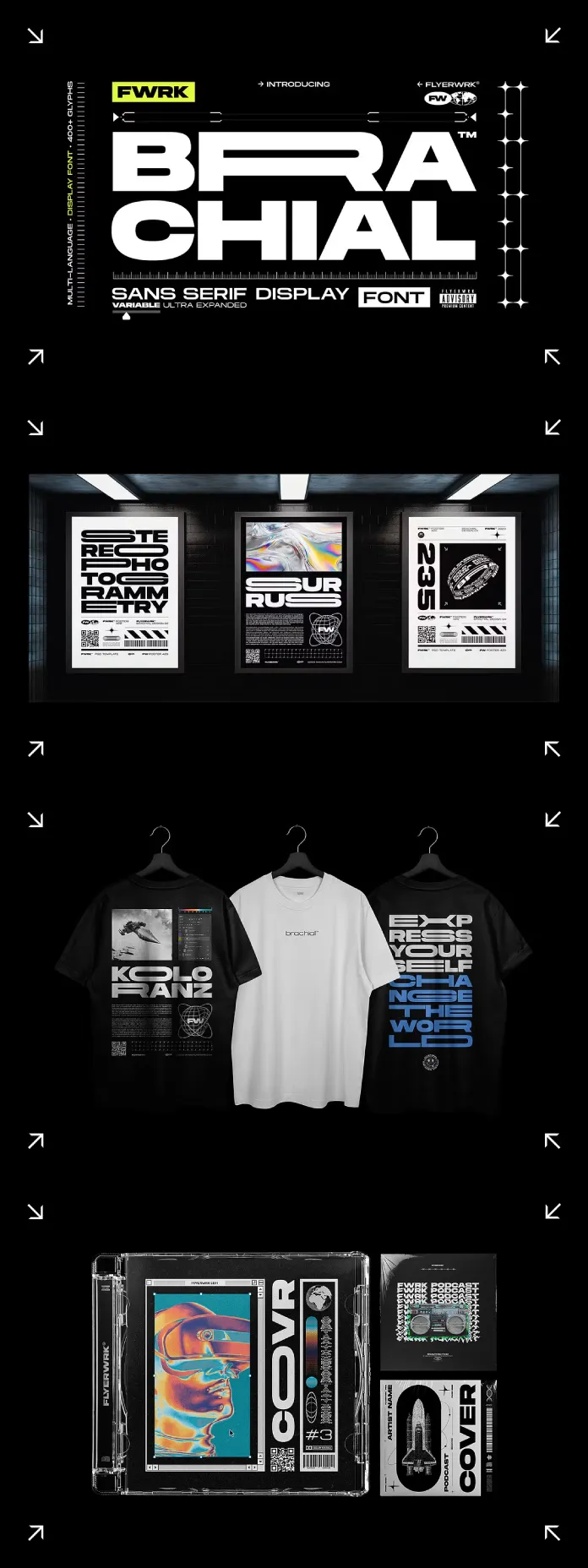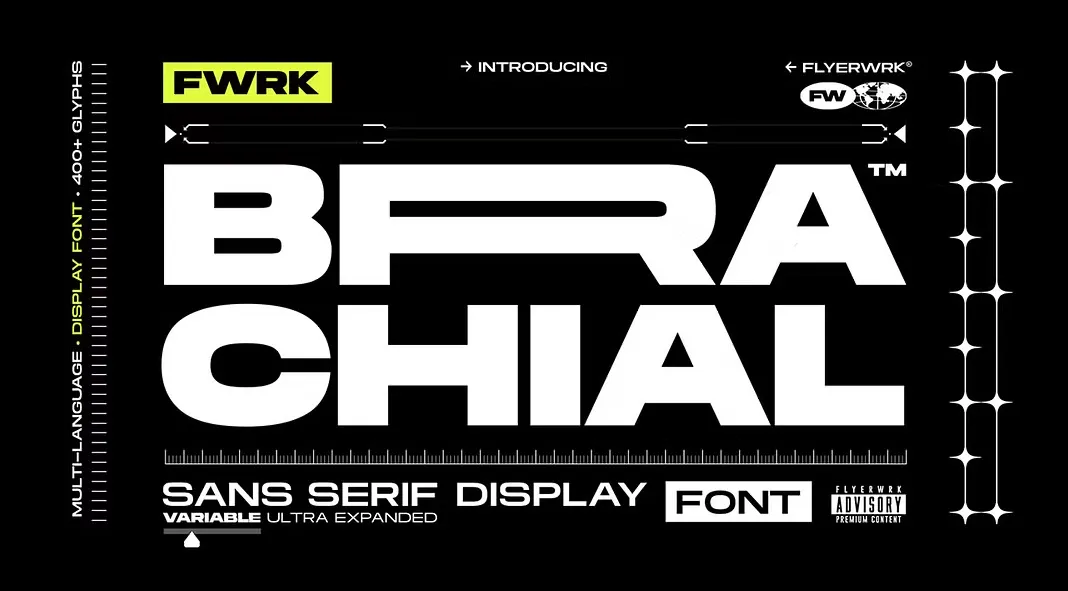
Discover Brachial: An Ultra-Wide & Versatile Typeface for Innovative Design
For those graphic designers seeking to make a powerful impact with their typography, we recommend Brachial, a unique font family from FLYERWRK. This ultra-wide geometric sans-serif typeface is designed to dominate the creative landscape, offering artists and designers a tool to create extraordinary visual statements.
Brachial draws inspiration from diverse sources, including retro-futuristic design, Brutalist architecture, the Bauhaus movement, and early modernist aesthetics. The result is a typeface that commands attention and pushes the boundaries of conventional design.
With its bold and expansive character set, Brachial is particularly well-suited for creating striking headlines, titles, and logos. Its versatility extends to various design applications, including branding projects, editorial work, and poster or album cover designs.
One of Brachial’s standout features is its extensive range of options. The typeface includes 40 distinct fonts, comprising five widths and eight weights each. Additionally, FLYERWRK has included a separate variable font file, allowing designers to seamlessly blend different widths and weights for maximum creative flexibility.
Brachial’s utility is further enhanced by its comprehensive language support and an advanced Latin character set featuring over 400 glyphs. This ensures that designers can cater to a global audience while maintaining the typeface’s distinctive aesthetic.
Brachial’s unique blend of geometric precision and creative versatility makes it a valuable addition to any designer’s toolkit. Whether used for digital or print media, Brachial offers the potential to create visually striking and memorable designs that capture attention and leave a lasting impression.